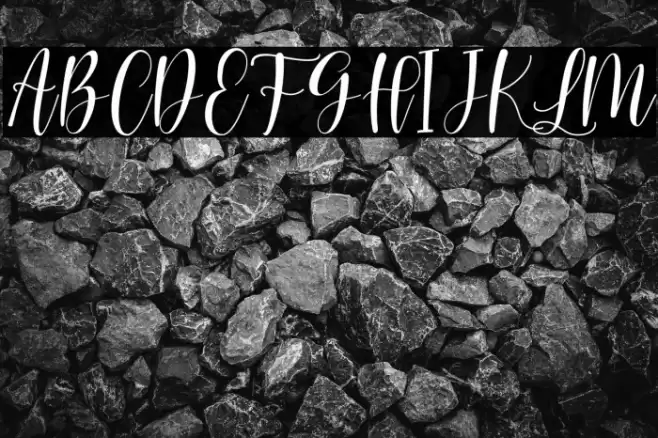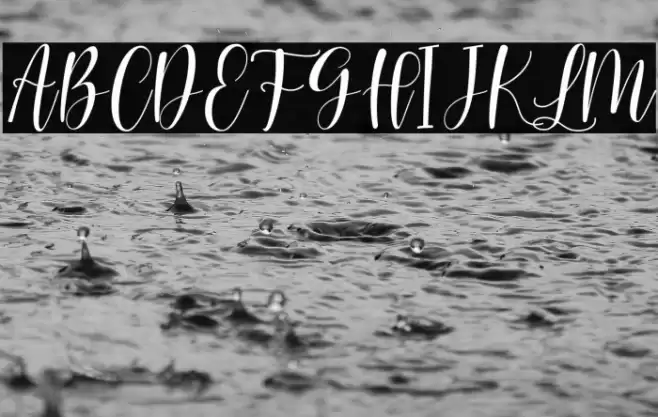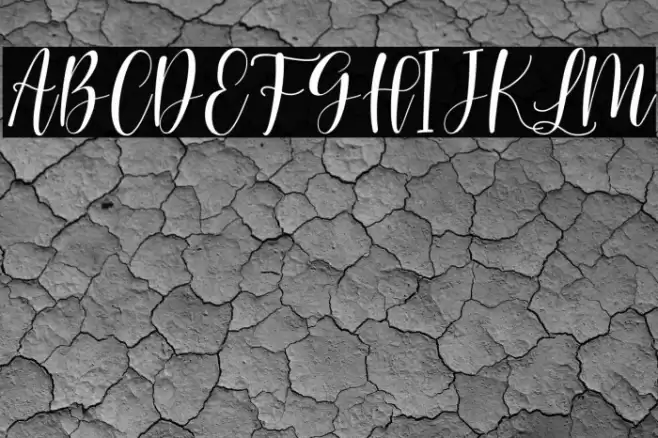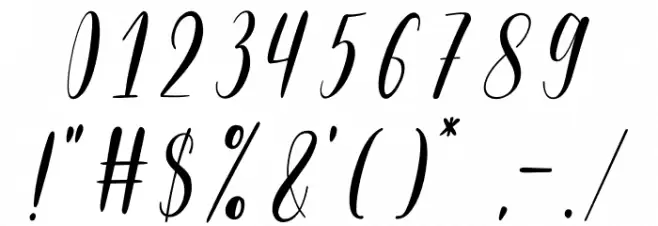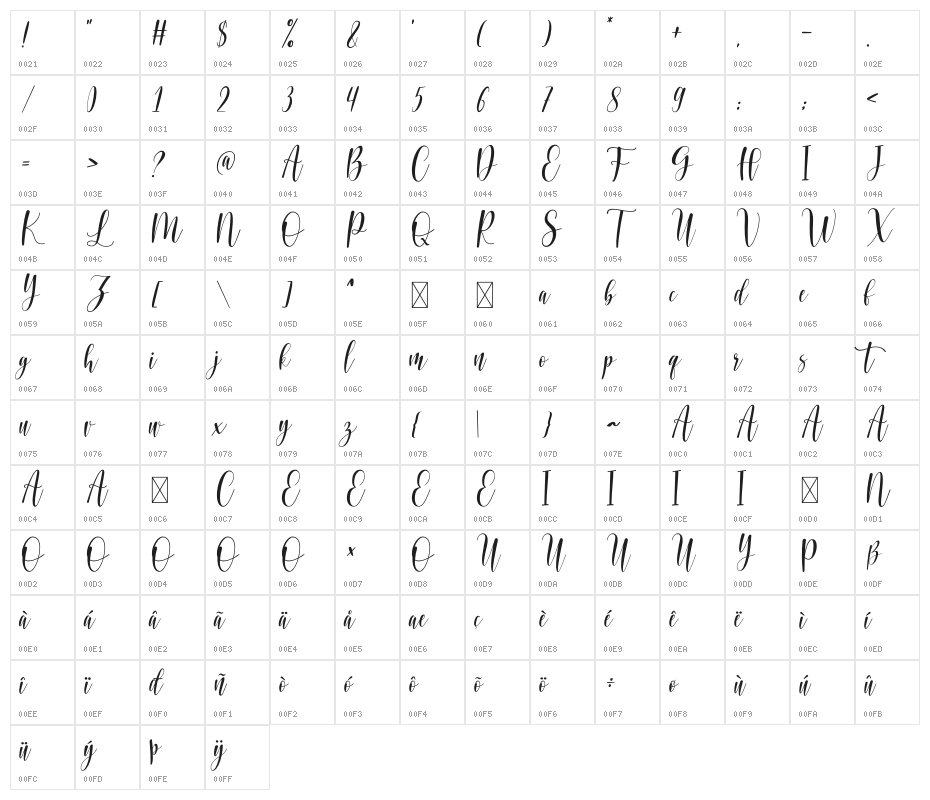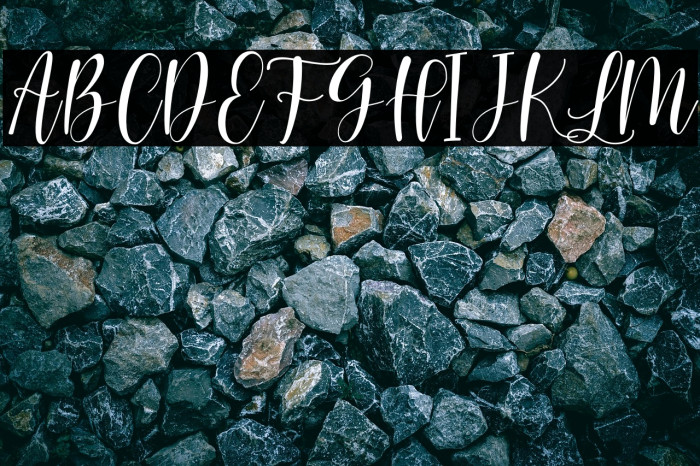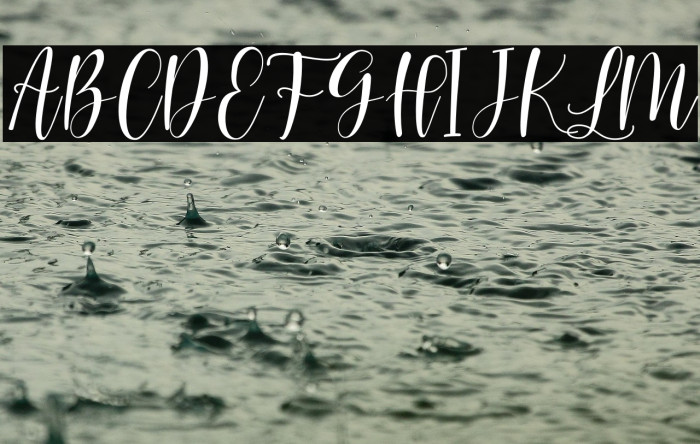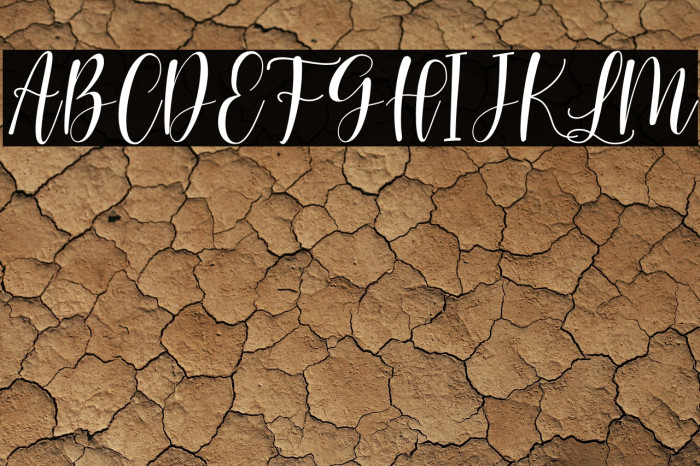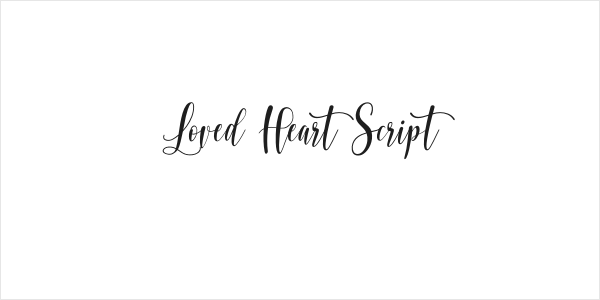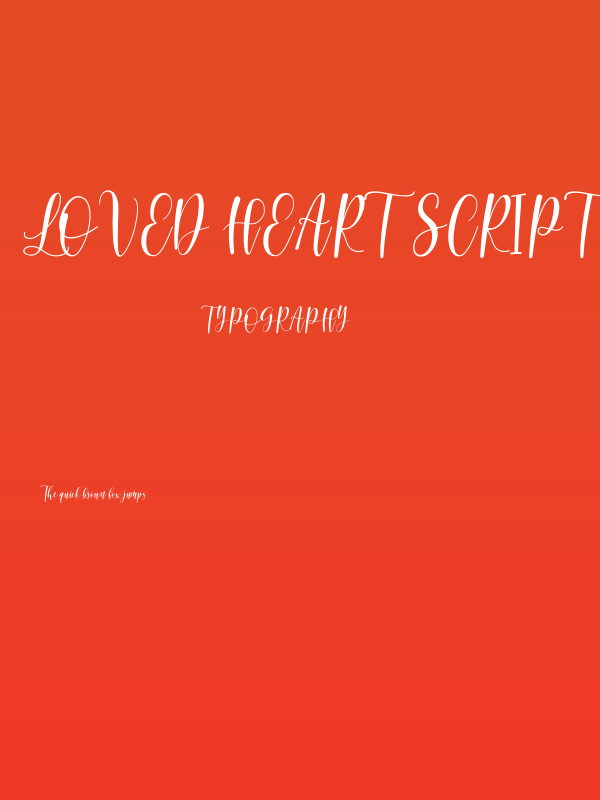
Loved Heart Script Font
Loved Heart Script Description
This elegant script font features flowing, interconnected letters that exude a sense of romance and sophistication. The uppercase letters are tall and graceful, with sweeping curves and delicate flourishes that add a touch of whimsy. The lowercase letters maintain a consistent flow, enhancing readability while preserving the font's decorative nature. Numbers and special characters are designed with the same attention to detail, ensuring a cohesive look across all text elements. The font's overall style is reminiscent of hand-lettered calligraphy, making it ideal for projects that require a personal, artistic touch.
A graceful script font with flowing, interconnected letters and elegant flourishes from Uncategorized fonts.
- Font: Loved Heart Script
- Proposed Projects: Wedding invitations, greeting cards, branding materials, and elegant packaging designs.
- Overall Style: Romantic, Artistic
- Use Case: Headlines, Invitations, Logos